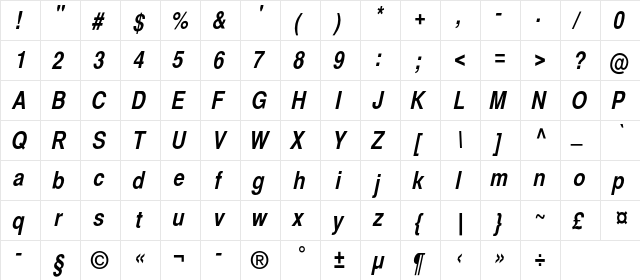
Design Context for BastionC Typeface
BastionC offers clean, dependable letterforms without strong stylistic allegiance, making it a practical choice for designers who need flexibility. Its italic angle brings a sense of urgency and motion to the letterforms. The heavy weight commands attention and anchors typographic hierarchies.
Pro Tip: Try BastionC for annotation and caption copy alongside an upright companion — the contrast in angle creates a dynamic but ordered typographic system.